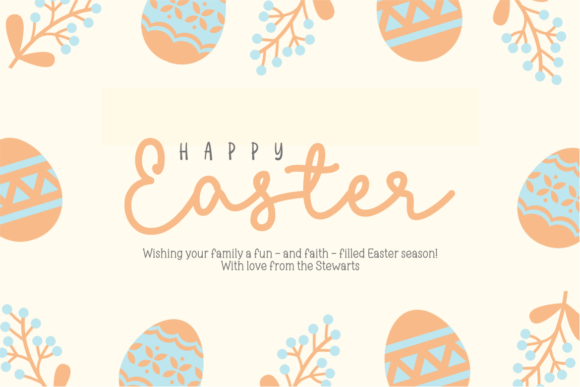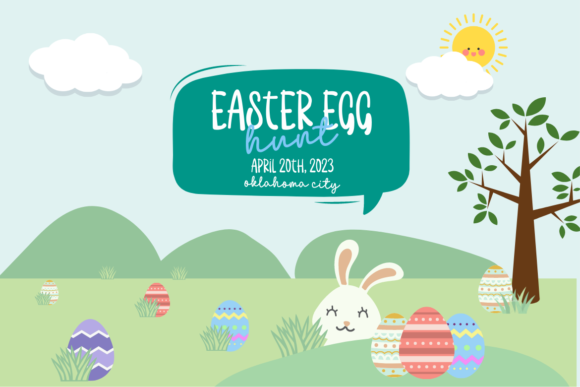
Amazing Easter Duo Font
db-ku.com - Script & Handwritten -- Amazing Easter Duo is a stylish and delicate duo font (script and display) suitable for a wide spectrum of applications. From greeting cards to headlines, this font will guarantee a romantic touch to each of your creations!